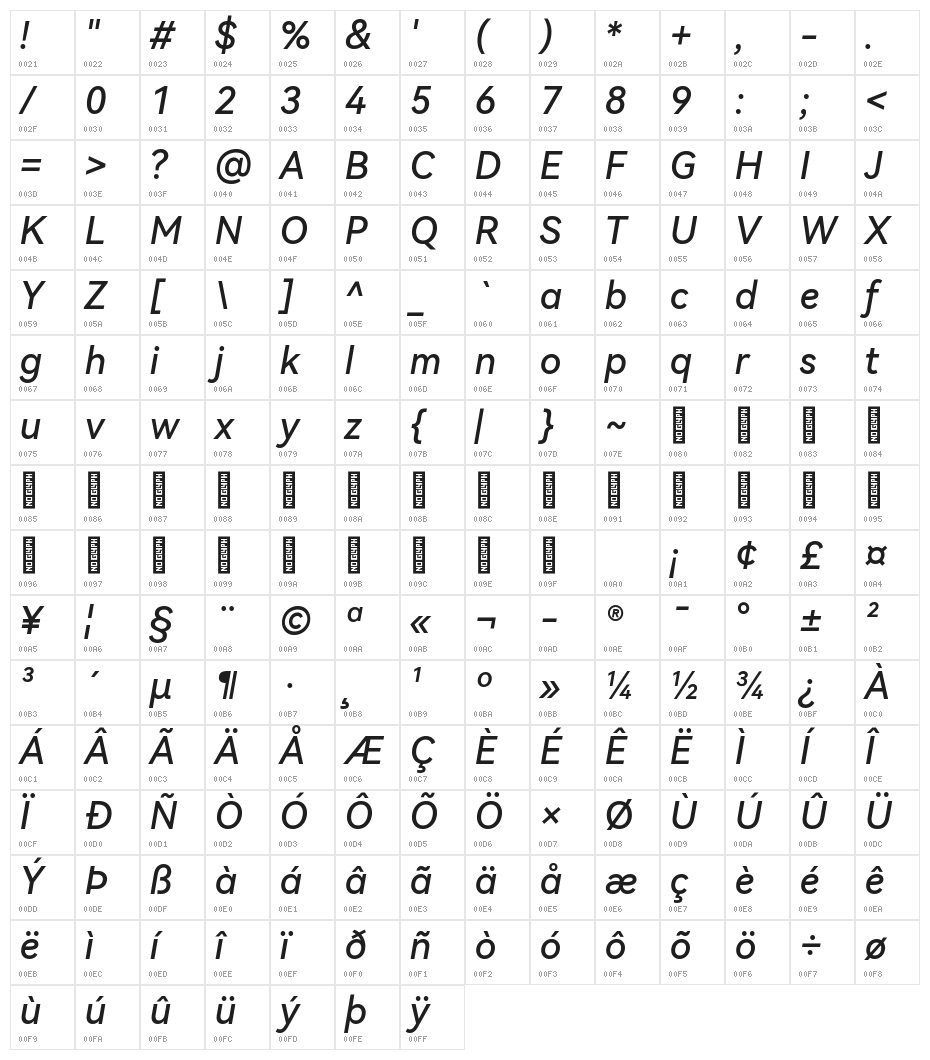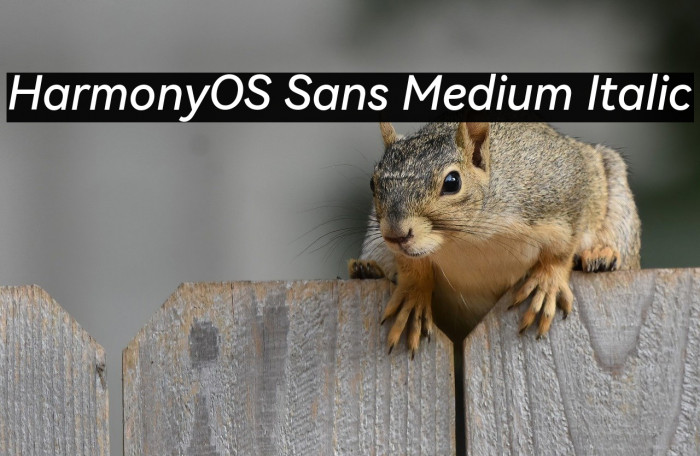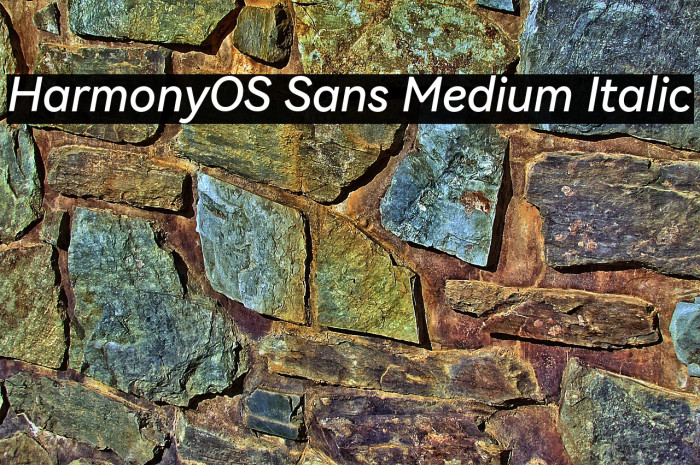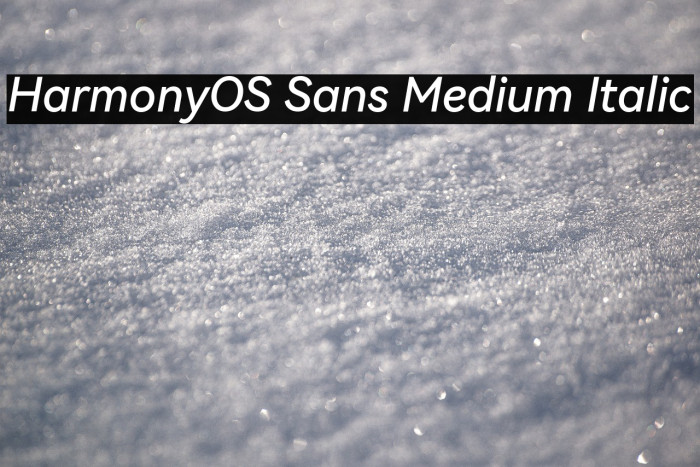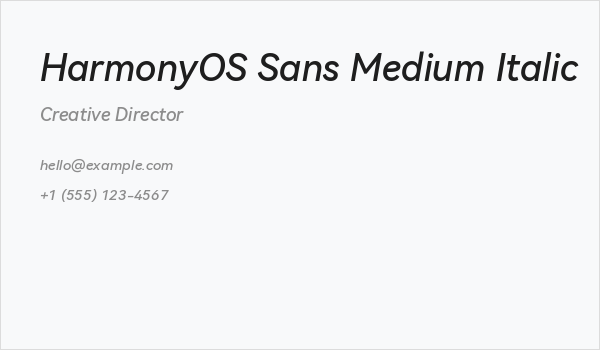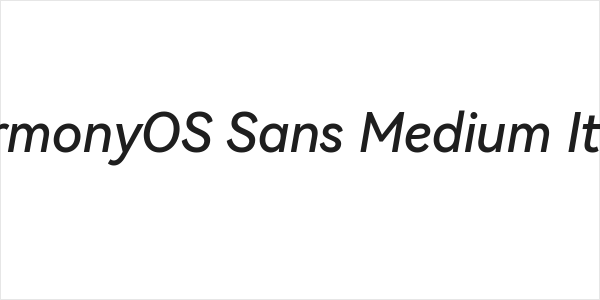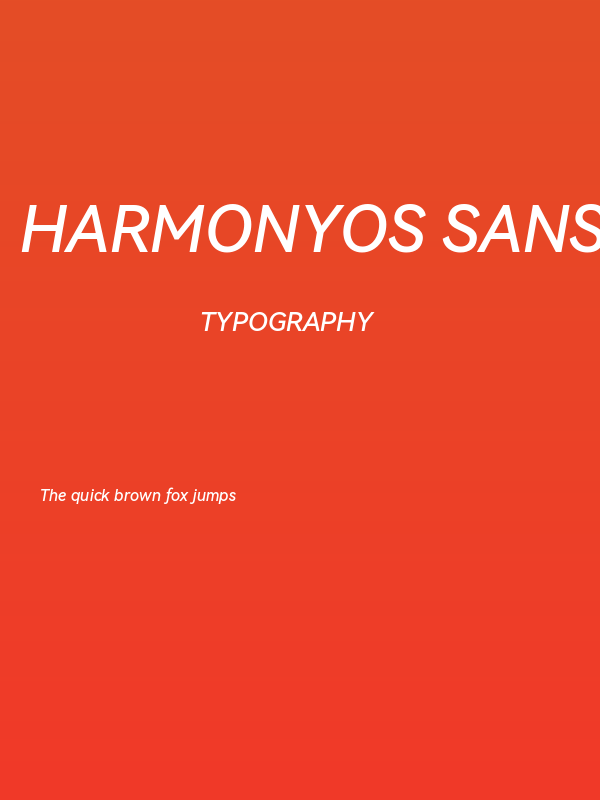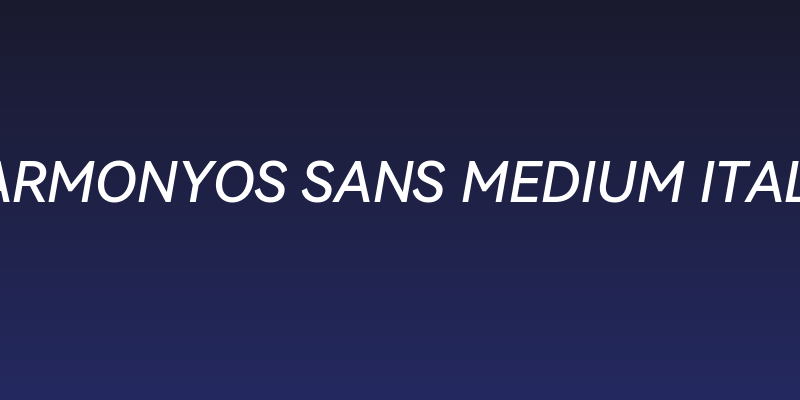
HarmonyOS Sans Medium Italic Font
HarmonyOS Sans Medium Italic Description
This typeface presents a clean and modern aesthetic with a subtle italic slant, offering a sense of movement and dynamism. The characters are well-proportioned, maintaining a harmonious balance between curves and straight lines. The uppercase letters are bold and assertive, while the lowercase letters exhibit a friendly and approachable style. Numbers are clear and easily distinguishable, making them suitable for both digital and print media. Special characters are designed with precision, ensuring consistency across the font. The overall design is versatile, making it suitable for a wide range of applications.
| Proposed Projects | Ideal for branding, advertising, user interfaces, and editorial design. |